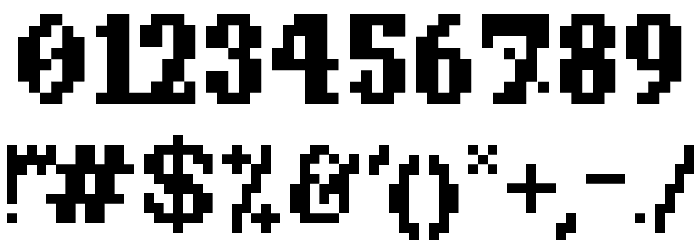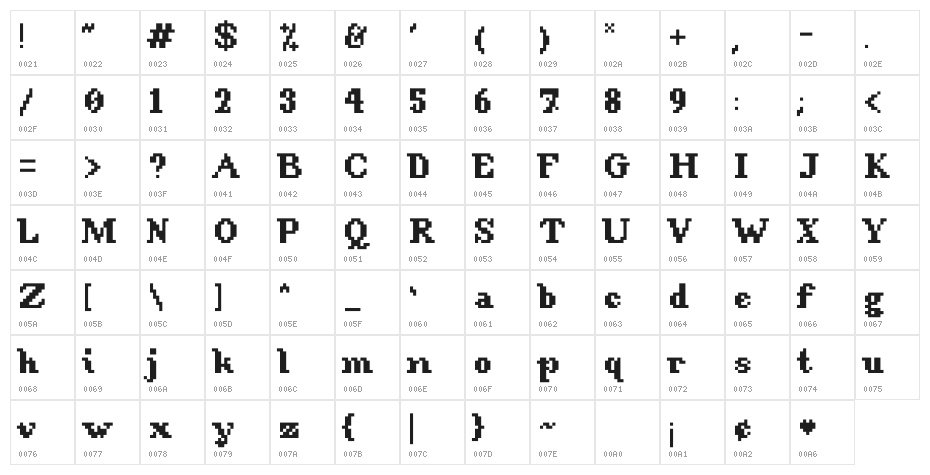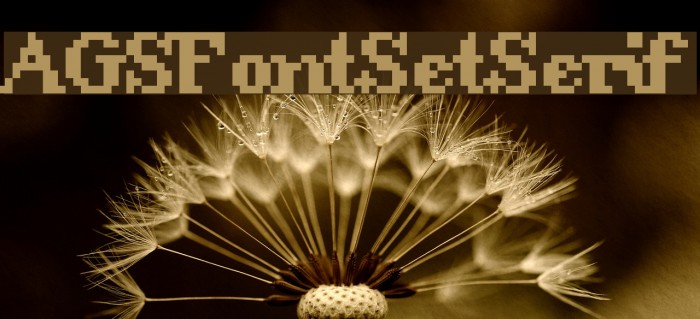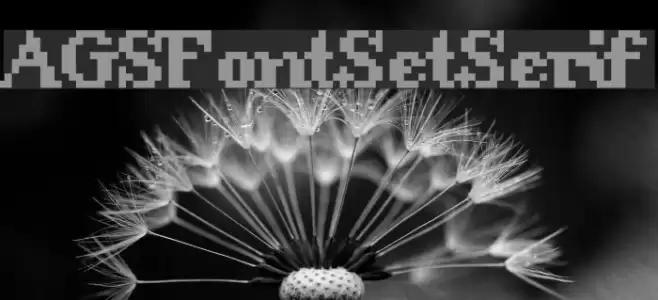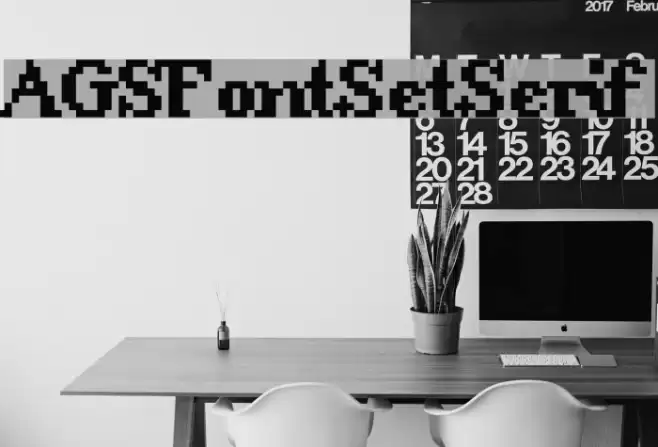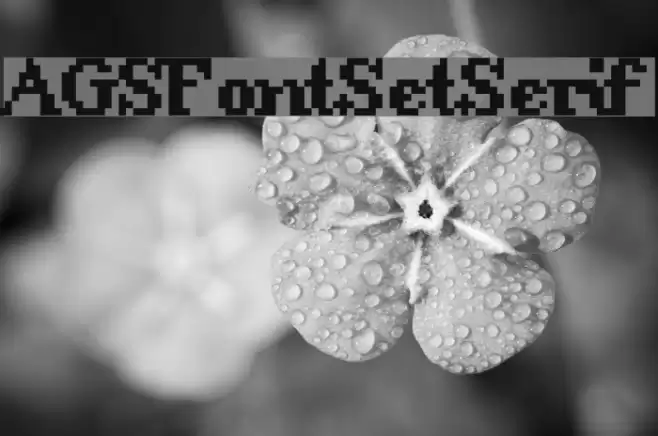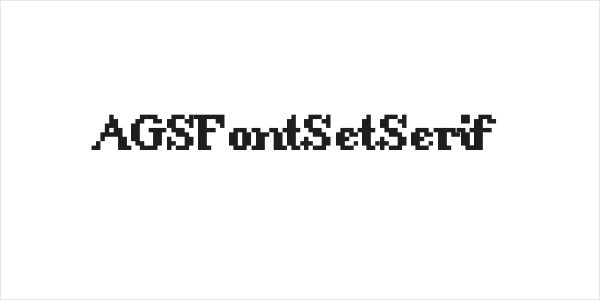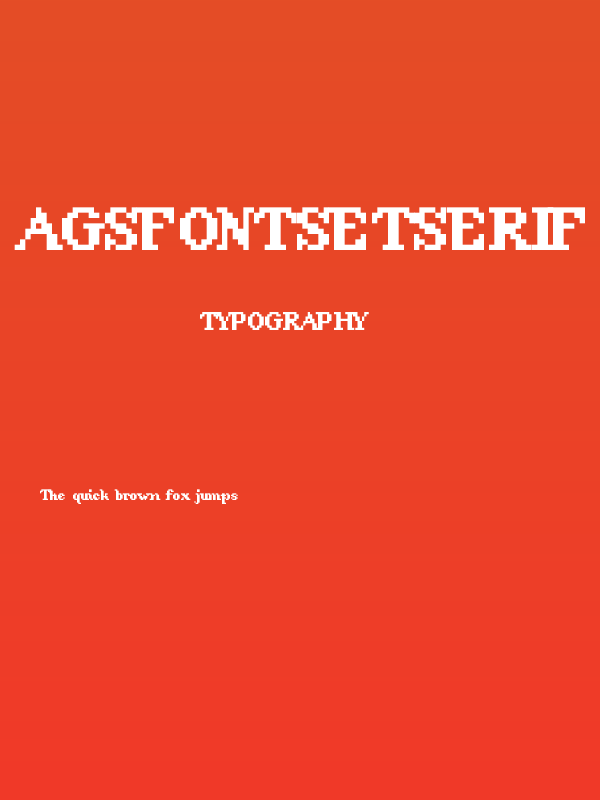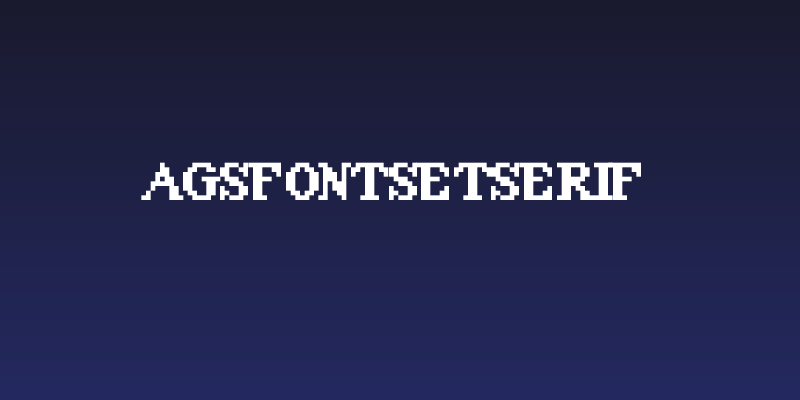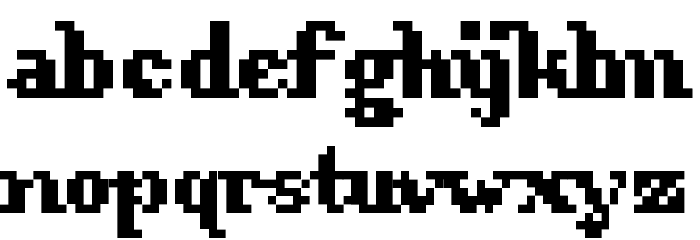
AGSFontSetSerif Font
AGSFontSetSerif Description
This font features a bold and robust serif style with a distinct pixelated appearance, reminiscent of early digital or video game typography. The uppercase letters are strong and commanding, while the lowercase letters maintain a consistent weight, ensuring readability. Numbers and special characters follow the same pixelated design, providing a cohesive look across all characters. The font's unique style makes it stand out, offering a nostalgic yet modern twist suitable for various creative projects.
Overall StyleVintage
Use CaseLogos, Headlines, Digital Art
Proposed ProjectsIdeal for retro-themed designs, video game graphics, digital art projects, and any creative work seeking a vintage digital feel.